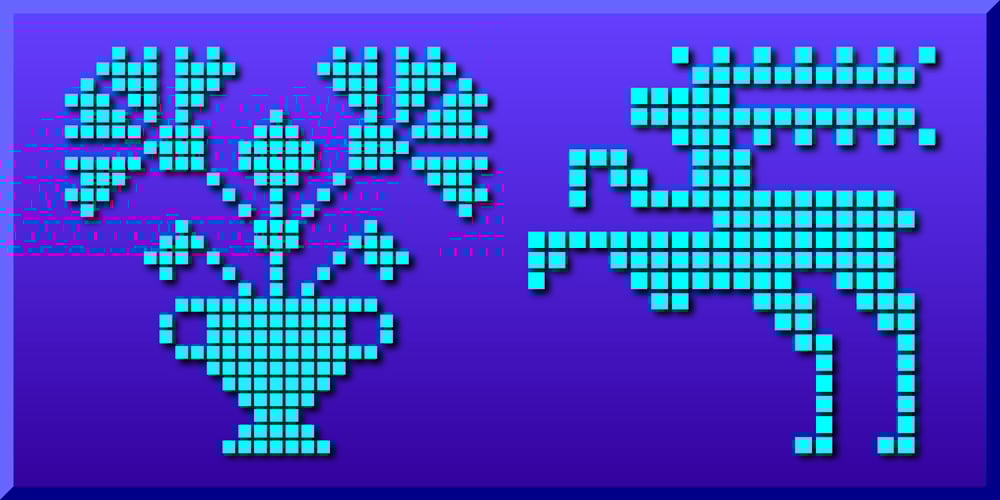
Swiss Folk Ornaments
Swiss Folk Ornaments font
Swiss Folk Ornaments Font Family was designed by Gerald Gallo and published by Gerald Gallo. Swiss Folk Ornaments contains 3 styles and family package options. Swiss Folk Ornaments were inspired by old Swiss embroidery designs. Swiss Folk Ornaments – Critters & Things is composed of critters (animals) and other things, hearts, pitchers, and a basket. In the character set all critters face to the left. In the shift+character set, under each respective key, all critters face to the right. There are a total of 72 ornaments in this font. Swiss Folk Ornaments – Floral is composed of floral designs. There are a total of 56 ornaments in this font. Swiss Folk Ornaments – Geometric is composed of symmetrical geometric designs. There are a total of 42 ornaments in this font.